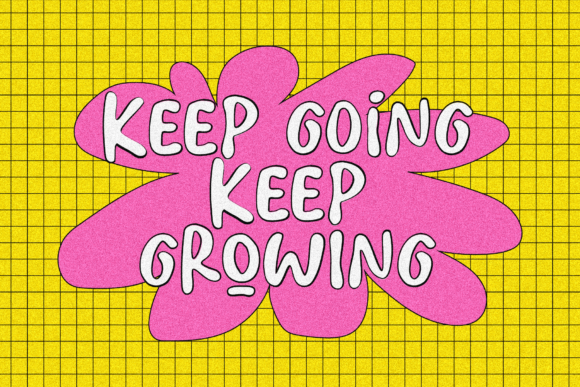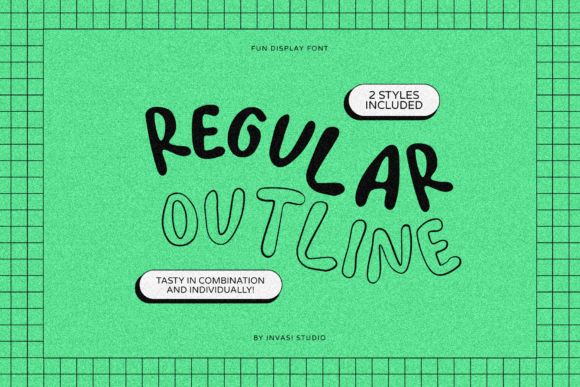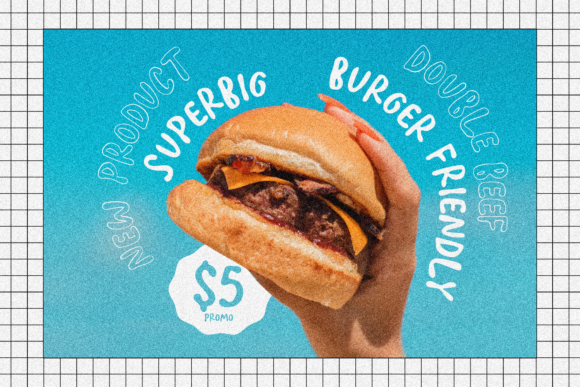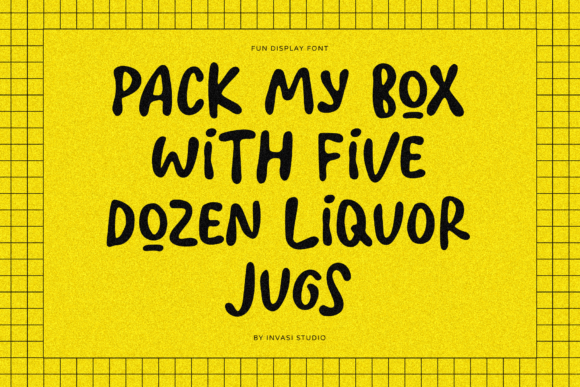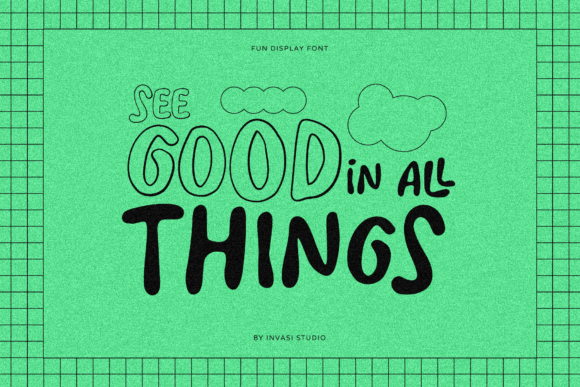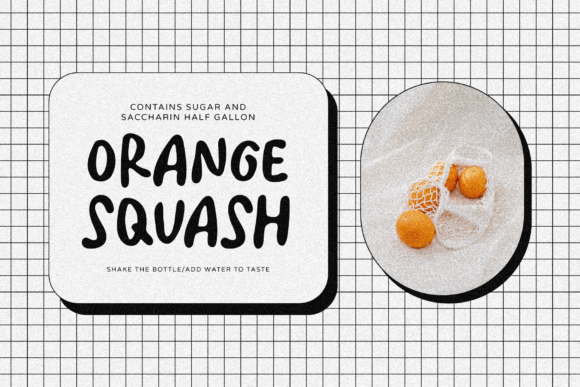
Introducing Cozy Waves Font: The Whimsical and Genuine Display Font
Are you looking for a font that can add a touch of magic to your creative projects? Look no further than Cozy Waves Font! This whimsical and genuine display font is expertly designed to make your creation look out of this world. With its unique and flowing design, Cozy Waves Font is perfect for a variety of ideas, from crafting and DIY projects to branding and advertising.
The Features of Cozy Waves Font
Cozy Waves Font is a carefully crafted font that boasts a range of features that make it perfect for creative projects. Some of its key features include:
- Whimsical Design: Cozy Waves Font has a playful and whimsical design that is sure to capture the attention of your audience. Its flowing lines and curves give it a unique and eye-catching look that is perfect for making a statement.
- Genuine Feel: Despite its whimsical design, Cozy Waves Font has a genuine feel that makes it perfect for a range of creative projects. Whether you’re working on a branding project or a crafting tutorial, this font is sure to add a touch of authenticity to your work.
- Display Font: Cozy Waves Font is a display font, which means it’s perfect for use in headlines, titles, and other prominent text elements. Its large and flowing design makes it easy to read and understand, even from a distance.
- Versatile: Cozy Waves Font is a versatile font that can be used in a variety of creative projects. Whether you’re working on a blog post, a social media graphic, or a crafting tutorial, this font is sure to add a touch of magic to your work.
The Benefits of Using Cozy Waves Font
So why should you choose Cozy Waves Font for your creative projects? Here are just a few benefits of using this amazing font:
- Adds a Touch of Magic: Cozy Waves Font has a unique and whimsical design that is sure to add a touch of magic to your creative projects. Whether you’re working on a branding project or a crafting tutorial, this font is sure to make your work stand out.
- Easy to Read: Despite its flowing design, Cozy Waves Font is easy to read and understand. This makes it perfect for use in headlines, titles, and other prominent text elements.
- Versatile: Cozy Waves Font is a versatile font that can be used in a variety of creative projects. Whether you’re working on a blog post, a social media graphic, or a crafting tutorial, this font is sure to add a touch of magic to your work.
- Perfect for Crafting and DIY Projects: Cozy Waves Font is perfect for crafting and DIY projects, such as scrapbooking, card making, and other paper crafts. Its whimsical design and genuine feel make it perfect for adding a personal touch to your projects.
How to Use Cozy Waves Font
Using Cozy Waves Font is easy! Here are a few tips for getting the most out of this amazing font:
- Use it as a Headline Font: Cozy Waves Font is perfect for use as a headline font. Its large and flowing design makes it easy to read and understand, even from a distance.
- Add it to Your Crafting and DIY Projects: Cozy Waves Font is perfect for adding a personal touch to your crafting and DIY projects. Use it to add titles, headings, and other text elements to your scrapbooking, card making, and other paper crafts.
- Experiment with Different Colors and Textures: Cozy Waves Font looks amazing in a range of colors and textures. Experiment with different colors and textures to find the perfect look for your creative project.
| Font Name | Cozy Waves Font |
Cozy Waves Font is a whimsical and genuine display font that is perfect for adding a touch of magic to your creative projects. With its unique and flowing design, this font is sure to make your work stand out. Whether you’re working on a branding project, a crafting tutorial, or a DIY project, Cozy Waves Font is the perfect choice. So why wait? Download Cozy Waves Font today and start adding a touch of magic to your creative projects!